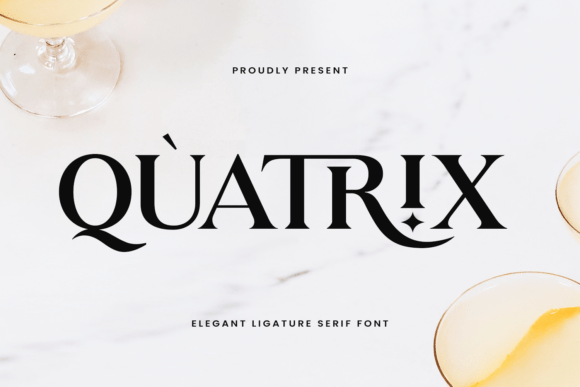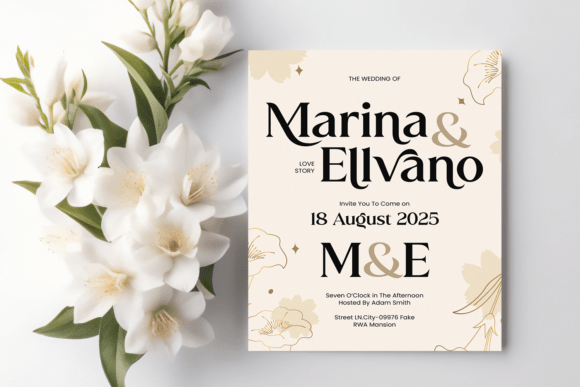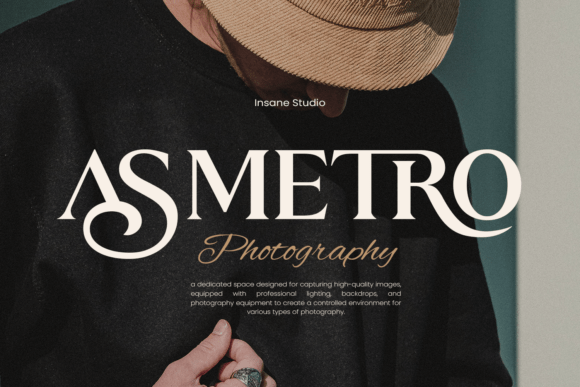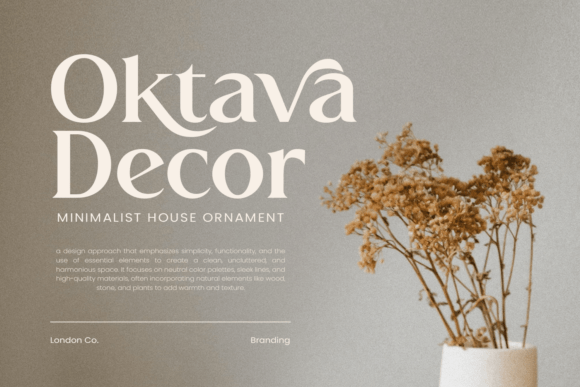
Quatrix Font
About the Quatrix Font
Introducing the Quatrix Font, a beautifully crafted typeface designed to elevate your creative projects. Quatrix is a refined serif font that combines classic elegance with modern sophistication. Its unique ligatures and luxurious design elements create a harmonious balance, making it perfect for high-end branding, fashion editorials, and elegant logo designs. Every detail of Quatrix is meticulously crafted to exude timeless beauty and charm.
Quatrix excels in applications requiring a sophisticated and refined aesthetic. Headlines, short-form text blocks, and logos benefit most from its elegant serifs and detailed ligatures. It is less suitable for body copy or extensive text due to its potentially low readability at smaller sizes.
Its strong, yet graceful personality is ideal for brands projecting luxury, heritage, or timeless quality – think high-end fashion, jewelry, or curated goods. Avoid using it for projects requiring a playful or informal tone.
Pairing Quatrix with a clean sans-serif like Open Sans for body text provides excellent contrast and readability. For a more modern feel, consider a geometric sans-serif such as Futura. A delicate script font could be used sparingly for accents, enhancing the overall luxurious feel.